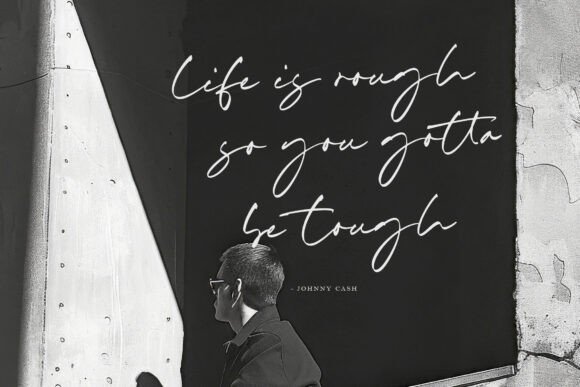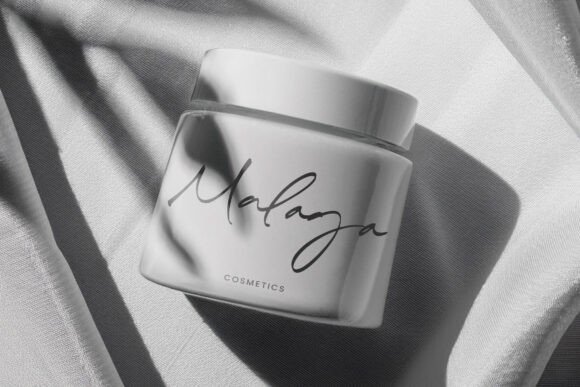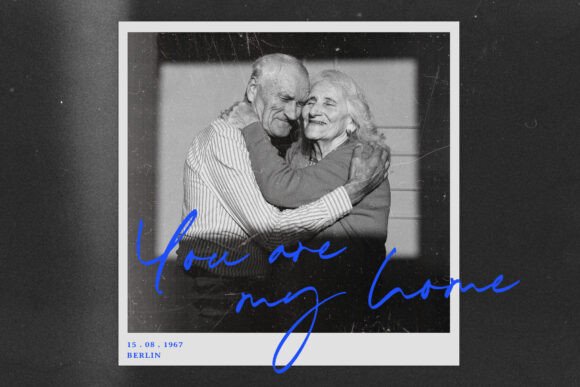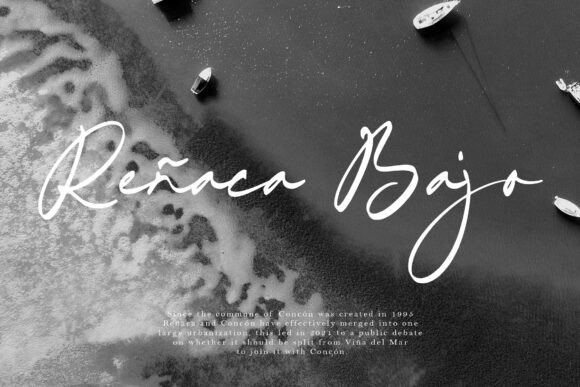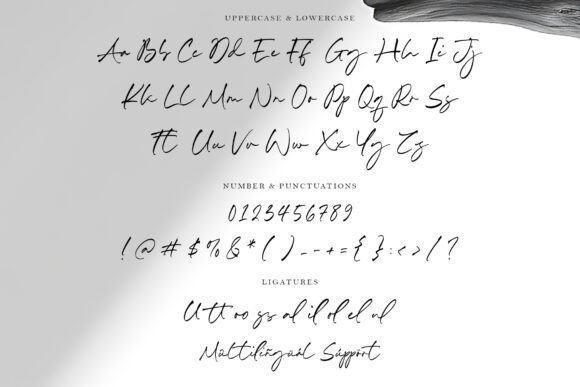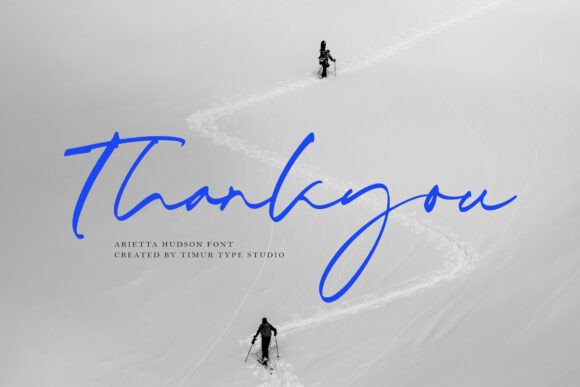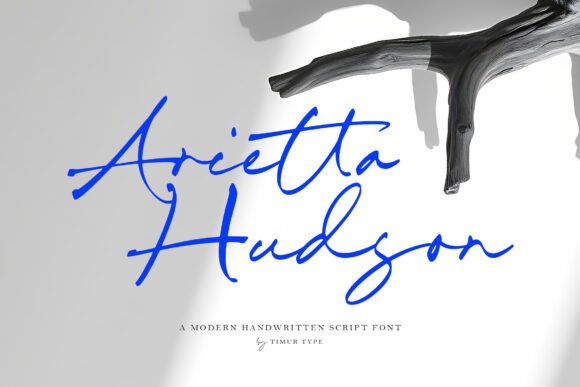
Arietta Hudson Font: Elevate Your Designs with a Touch of Elegance and Whimsy
In the world of typography, few fonts manage to strike a balance between elegance and casual charm. Arietta Hudson, a modern handwritten script font, is one such gem that effortlessly merges sophistication with a friendly, approachable vibe. With its fluid lines, stylish curves, and a dash of creativity, Arietta Hudson is poised to become your go-to font for a variety of design projects, from formal invitations to social media graphics.
The Essence of Arietta Hudson
Arietta Hudson is more than just a font; it’s an expression of warmth and individuality. Each letter is meticulously crafted to convey a sense of personality and charm, making it perfect for designers and crafters looking to add a human touch to their work. Whether you’re designing wedding invitations, branding materials, or social media posts, Arietta Hudson brings a level of sophistication and elegance that’s hard to achieve with standard fonts.
Key Features of Arietta Hudson
- Modern Handwritten Script: Arietta Hudson boasts a contemporary take on traditional calligraphy, making it versatile for both formal and informal projects.
- Elegant and Casual: The font strikes a perfect balance between elegance and a casual, friendly vibe, making it suitable for a wide range of applications.
- Flowing Lines and Curves: Its stylish and fluid design adds a touch of sophistication to any text, ensuring your message stands out.
- Perfect for Various Projects: From wedding invitations and branding materials to social media graphics and more, Arietta Hudson is incredibly versatile.
Applications of Arietta Hudson
The versatility of Arietta Hudson makes it an excellent choice for various design projects. Here are some of the areas where this font truly shines:
- Invitations and Announcements: Add a touch of elegance and personal warmth to wedding invitations, birthday announcements, and other special occasions.
- Branding and Packaging: Elevate your brand’s visual identity with a font that exudes both professionalism and approachability.
- Social Media Graphics: Stand out on social media platforms with eye-catching graphics that showcase the friendly and stylish side of your brand or personal projects.
- Stationery and Lettering: Bring a personal and creative touch to your letters, thank you cards, and stationery.
Why Choose Arietta Hudson?
In a sea of fonts, Arietta Hudson stands out for several reasons:
- Unique Charm: It offers a unique, handwritten charm that’s hard to replicate with other fonts.
- Versatility: Its adaptability makes it suitable for a wide range of projects, from formal to casual.
- Contemporary Design: It brings a modern twist to classic calligraphy, ensuring your designs feel current and fresh.
Arietta Hudson is more than just a font; it’s a design element that can elevate your projects with its elegant yet casual charm. Whether you’re a professional designer or a crafting enthusiast, this modern handwritten script font is sure to inspire your creativity and help your designs stand out. With Arietta Hudson, you can add a personal touch to your work, making it more engaging and memorable for your audience. So, why settle for ordinary when you can add a touch of elegance and whimsy to your designs? Explore the possibilities with Arietta Hudson Font today.